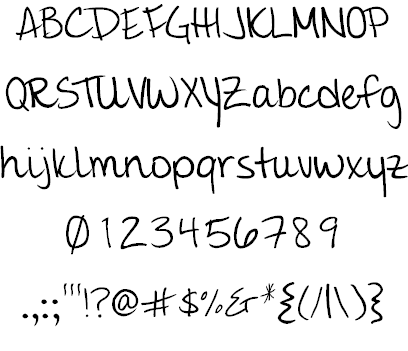
Free Giddehand Font
Featuring a free giddehand font. Font Space has created this amazing and beautiful free typeface. This is absolutely fancy font so you can easily make world-class designs.